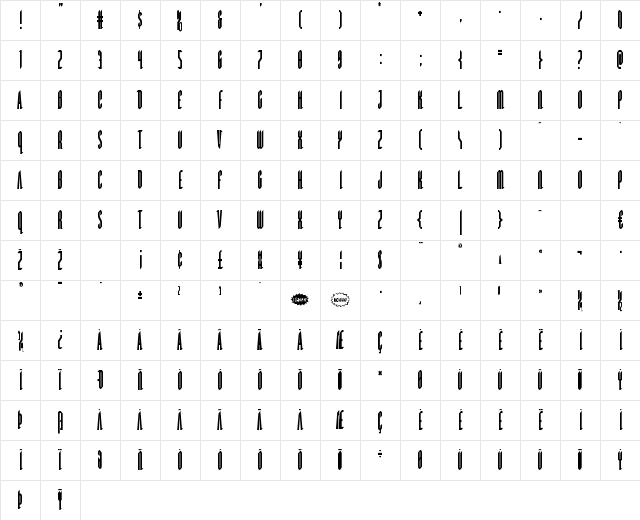
Complete Devil Summoner Condensed glyph index. Displaying only characters natively supported by Devil Summoner Condensed font.
Devil Summoner is a composed and adaptable typeface that performs quietly and consistently across a wide range of design contexts. Its narrow stance lets it pack a punch even in space-constrained designs.